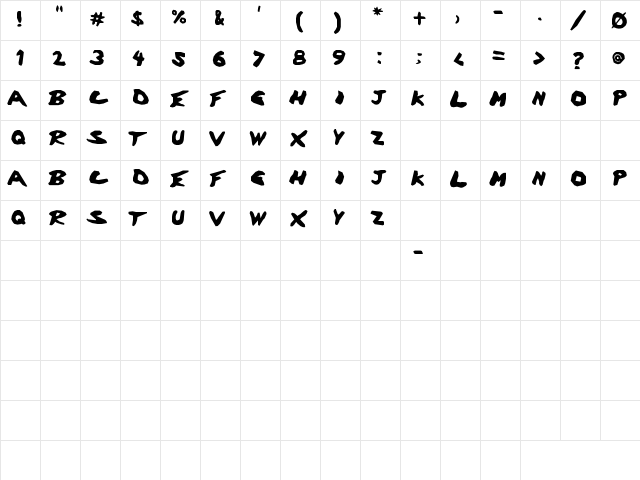
Discharge Regular
Design Context for Discharge Typeface
Discharge is a composed and adaptable typeface that performs quietly and consistently across a wide range of design contexts.